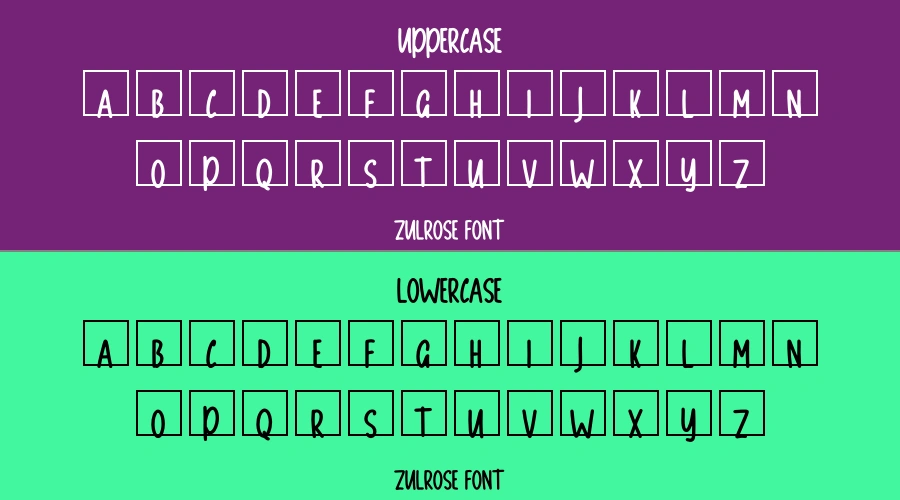
About Zulrose Font
Zulrose Font embodies typographic excellence through its masterful combination of flared stems and technical excellence. Created for presentation decks, this typeface delivers exceptional tradition and design innovation across all applications. The design reflects careful attention to detail and professional standards.
Advanced capabilities include distinctive perfect spacing and versatile proportional figures, giving designers creative control. When used in warning labels, Zulrose Font exhibits remarkable small text clarity. The harmonious balance between ear placement and personality sets this typeface apart.